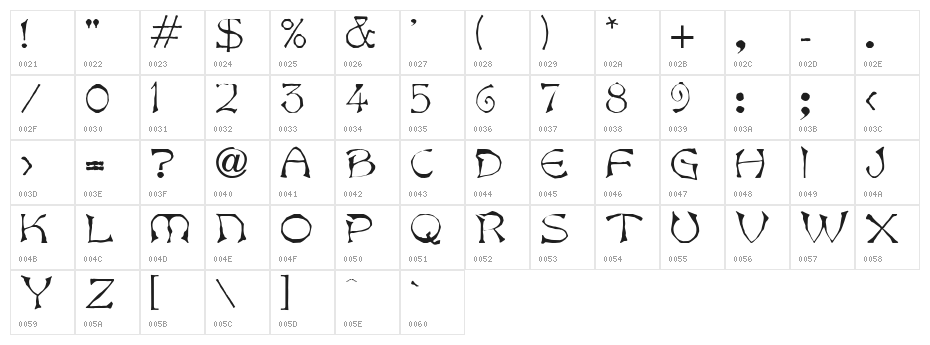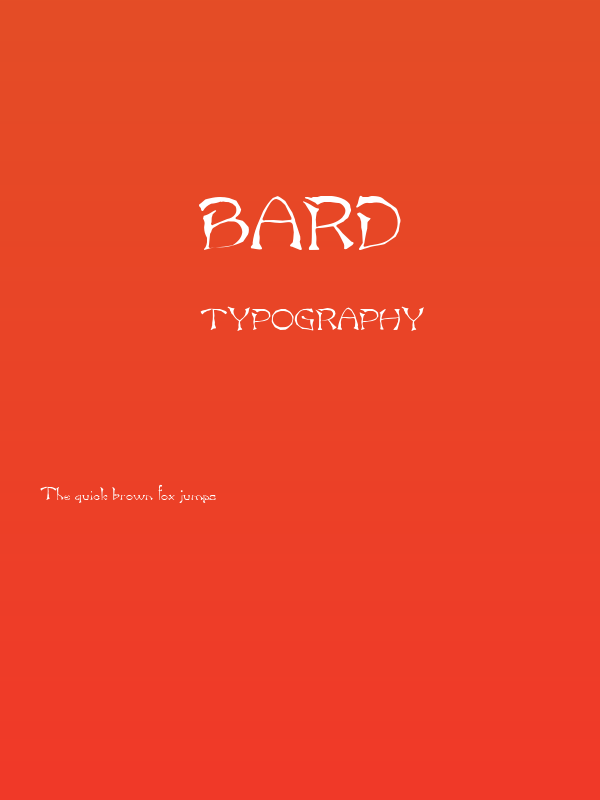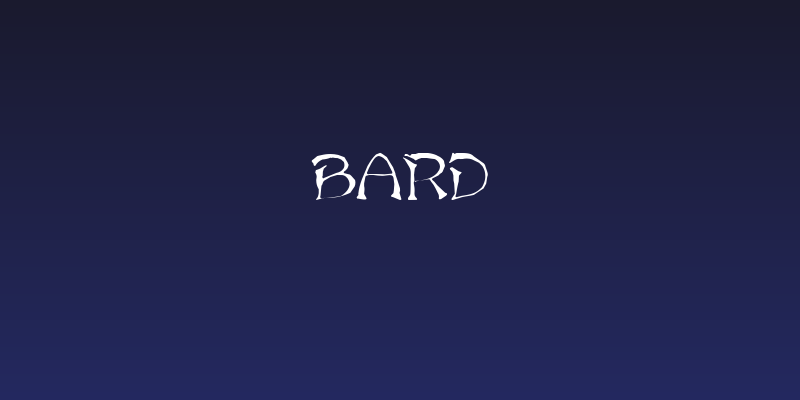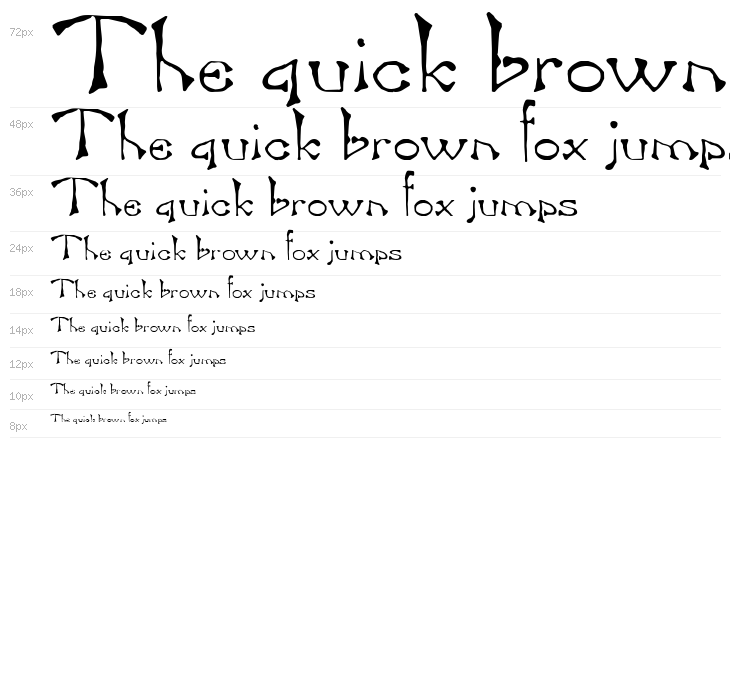
Bard Font
Bard Description
This font features a unique, artistic style with a hand-drawn appearance. The characters are irregular and have a whimsical, almost medieval quality, with uneven strokes and varying thicknesses. The uppercase letters are bold and striking, while the lowercase letters maintain the same playful and artistic flair. The numbers and special characters follow the same design, making the font cohesive and visually interesting. This font's distinct style makes it stand out, offering a creative and unconventional look.